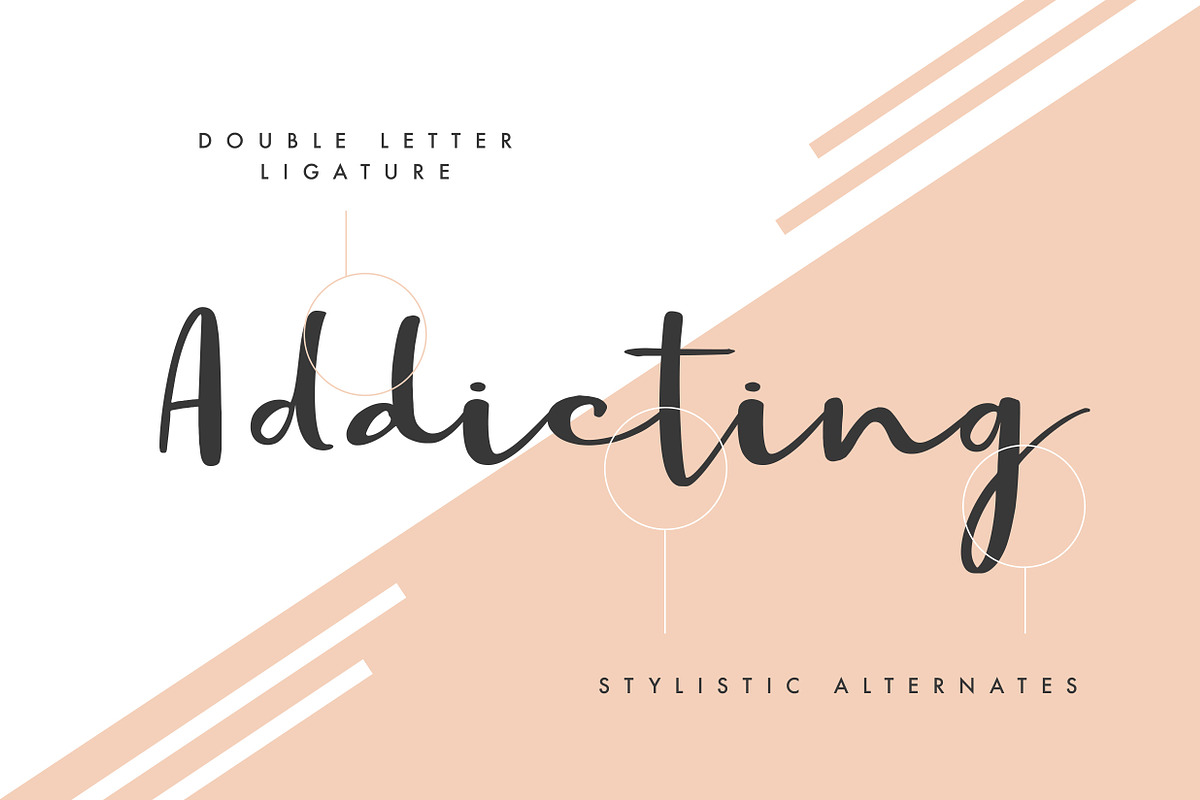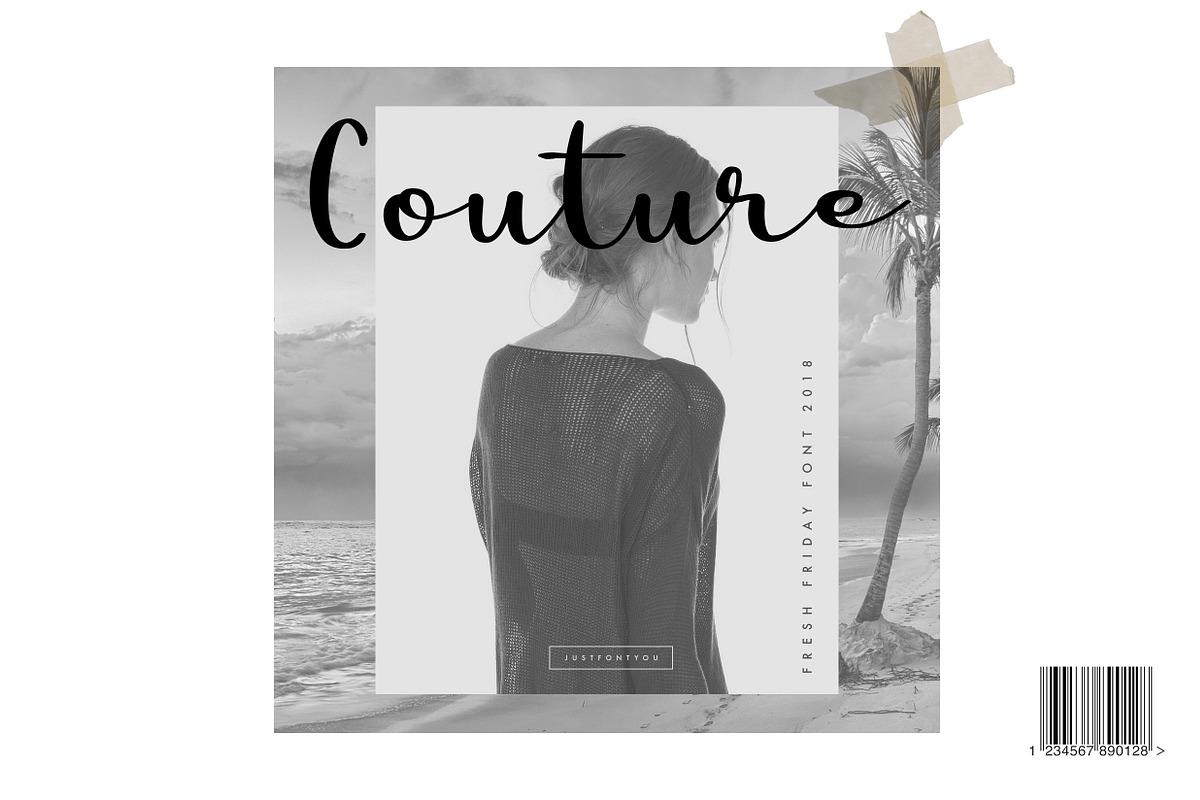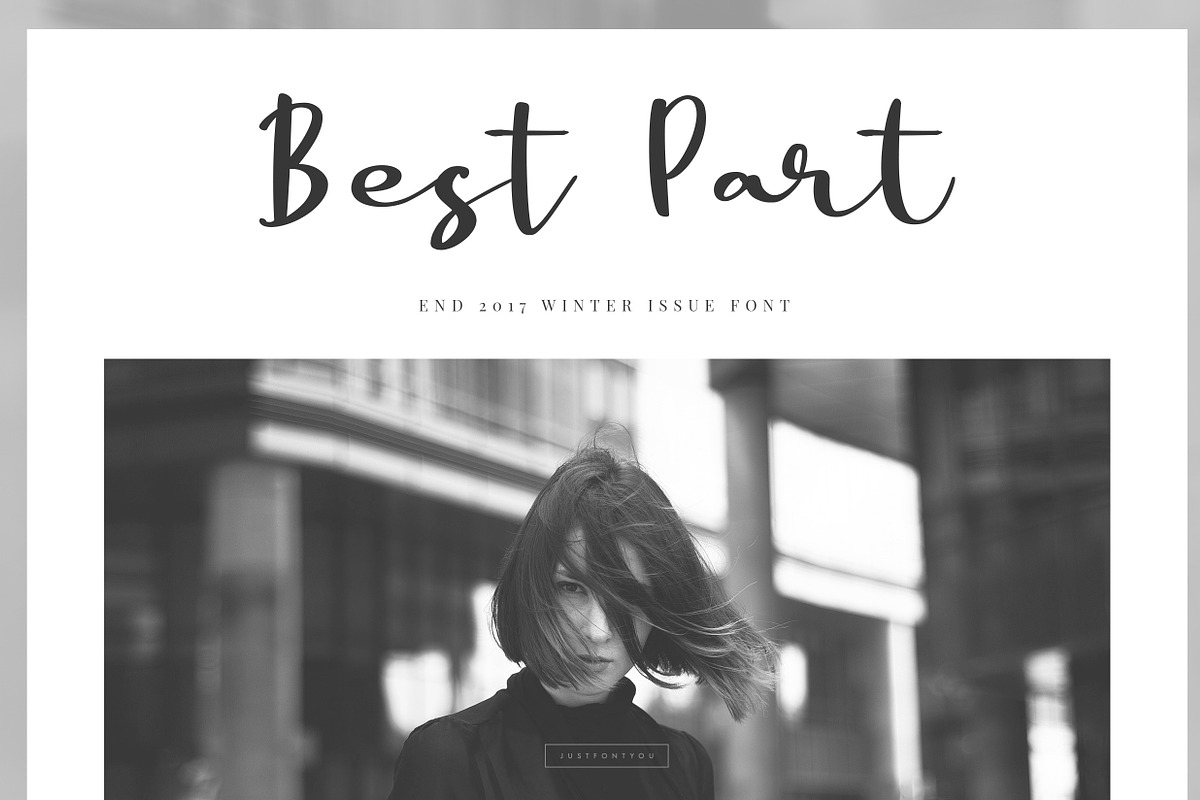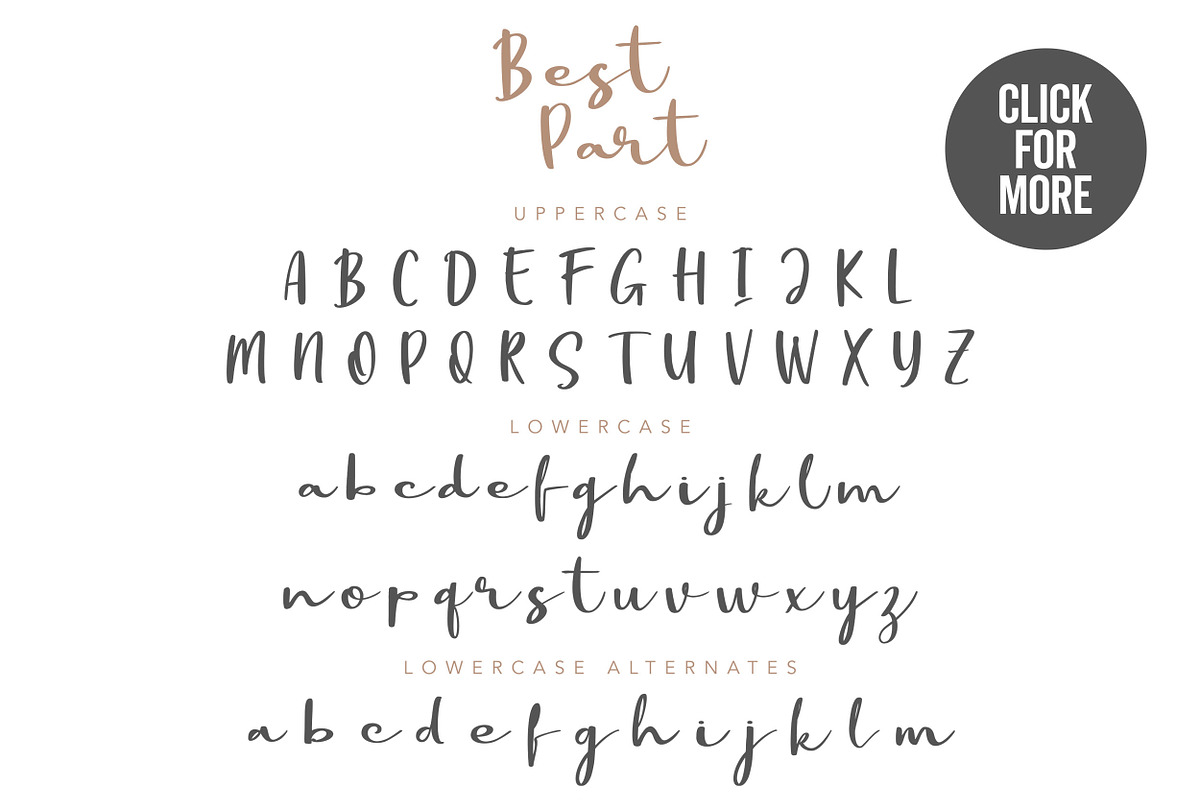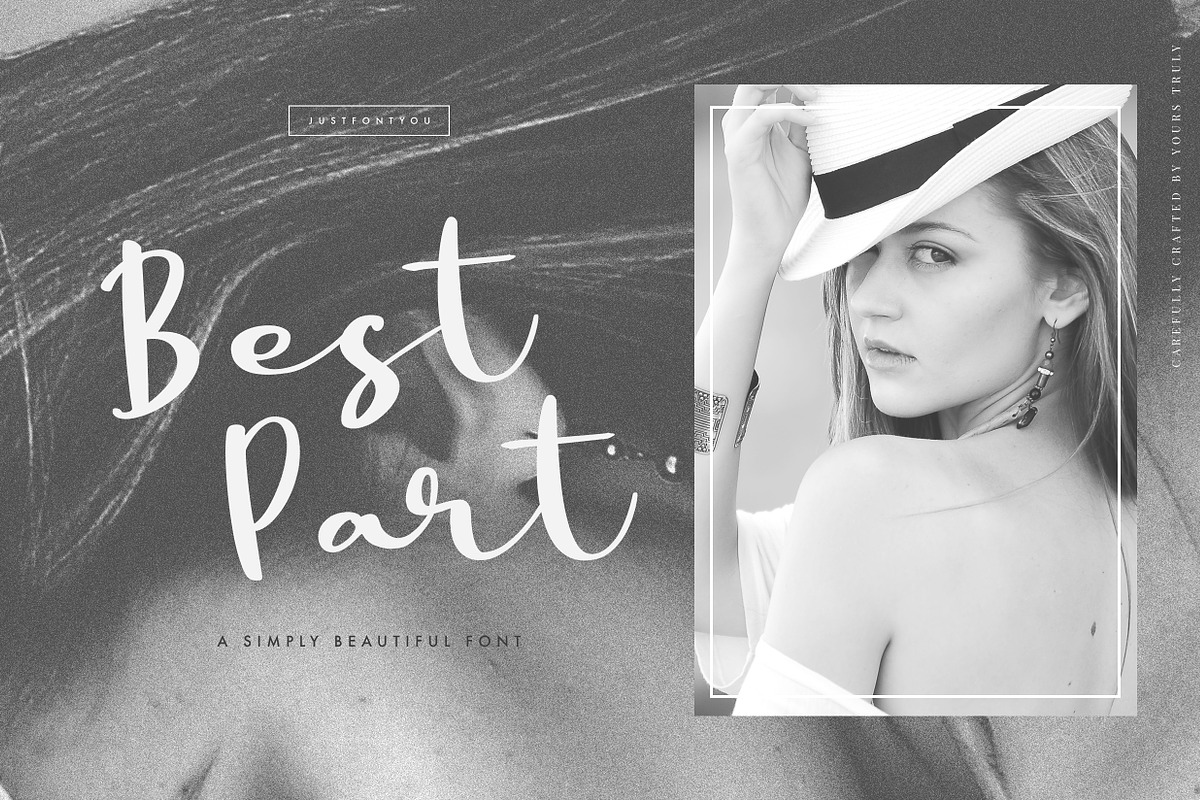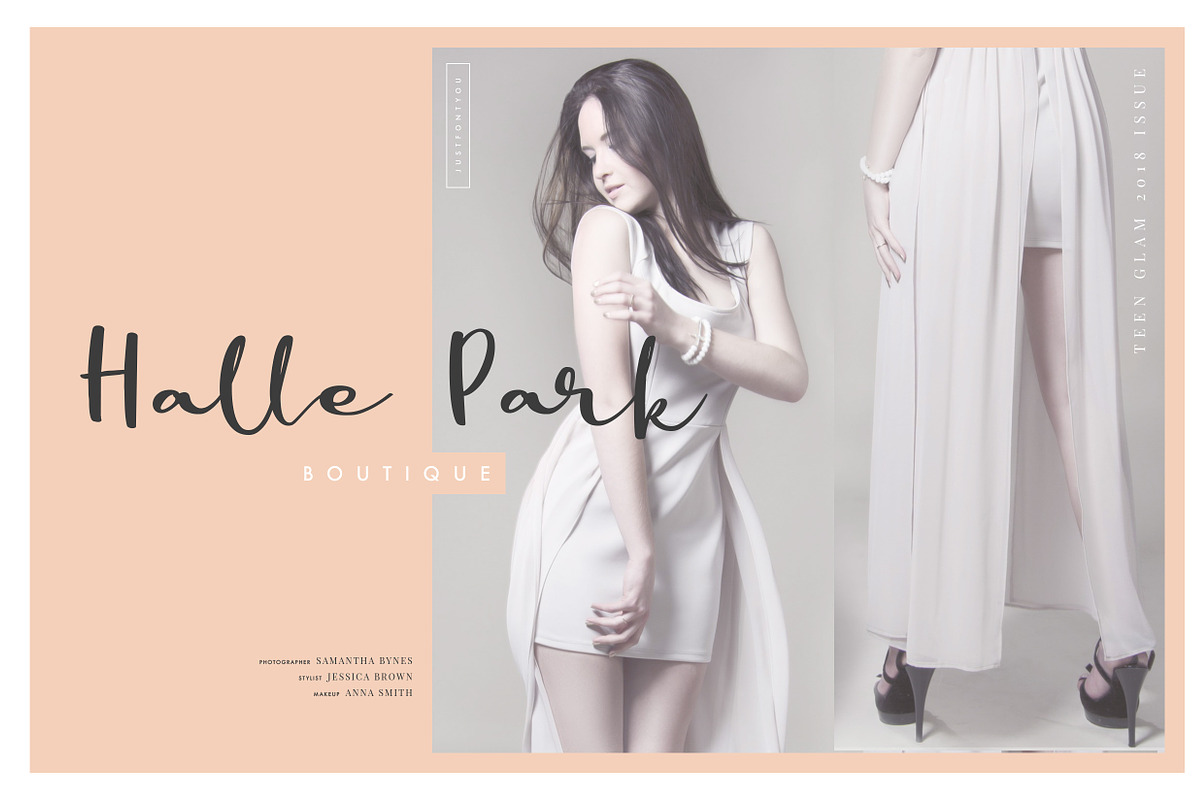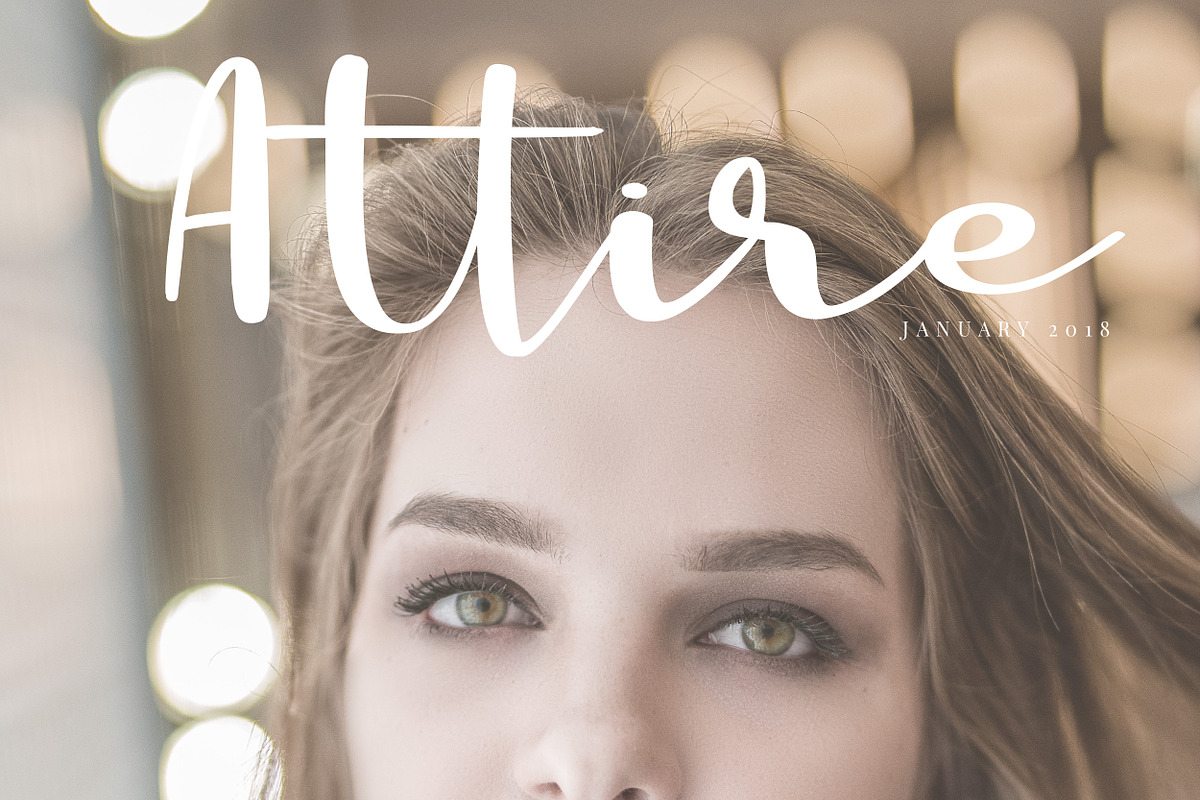
Best Part - Beauty Casual Font
Best Part, an elegant yet casual fancy script typeface inspired by the casual fashion lookbook and classy feminine stuff nowadays. Perfectly fit for branding, logo, wedding things, greeting cards, fashion, lookbook, marketing promotion, anytime you want to look fancy elegant but still casual.
Included Uppercase, Lowercase, Numbers & Punctuations, Multilanguage Support, Stylistic Alternates for every lowercase letters, and double letter ligatures to aim the seamlessly handwriting feels.